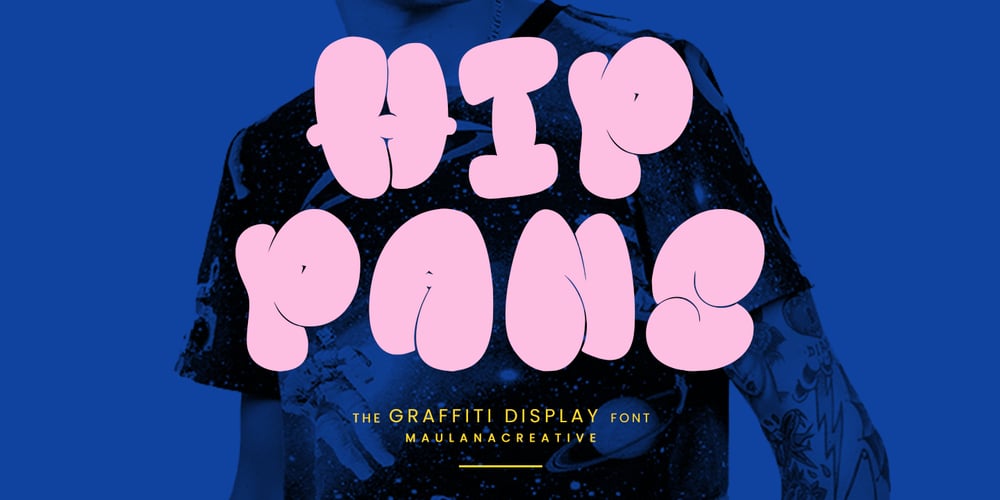
MC Hippans Font Family was designed by Gilang Maulana and published by Maulana Creative. MC Hippans contains 1 styles and family package options. Hippans graffiti display font. With bold stroke, fun character with alternates. To give you an extra creative work. Hippans graffiti display font support multilingual language. This font is good for logo design, Social media, Movie Titles, Books Titles, a short text even a long text letter and good for your secondary text font with script or serif. Make a stunning work with Hippans graffiti display font.Cheers,Maulana Creative